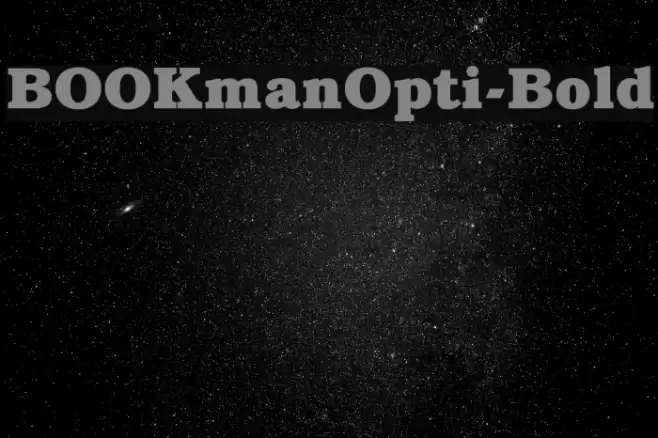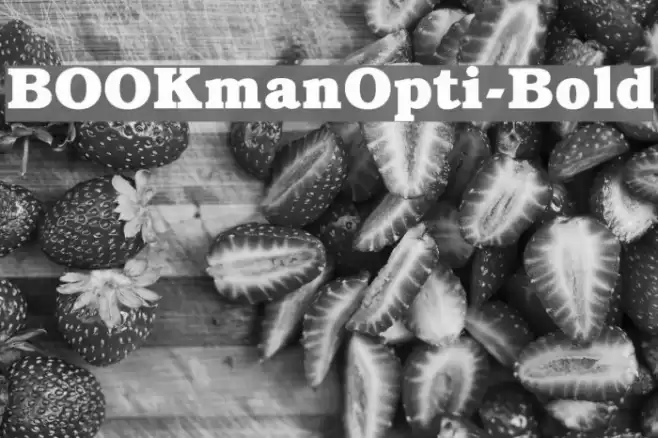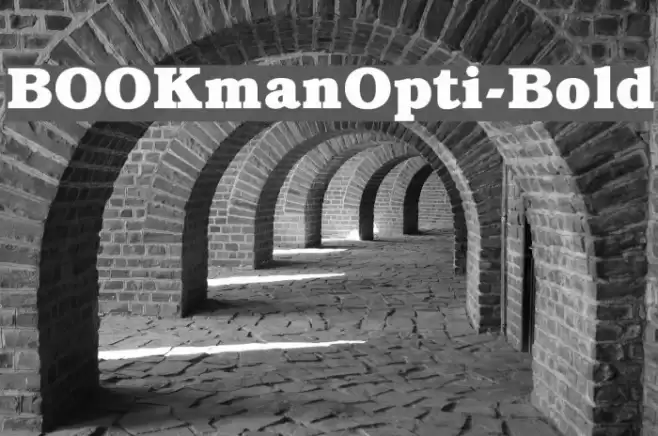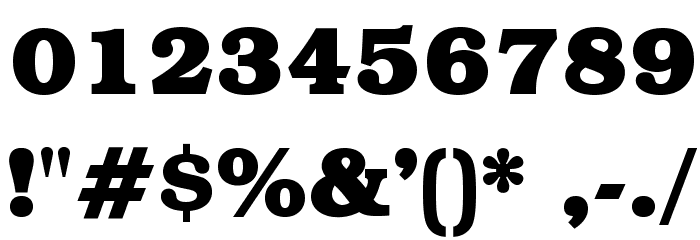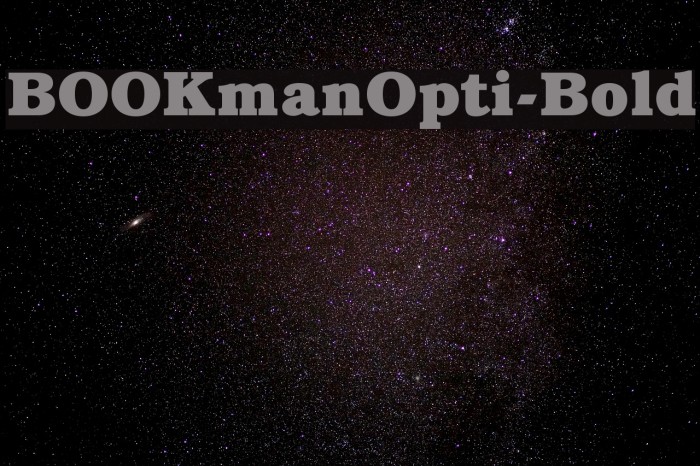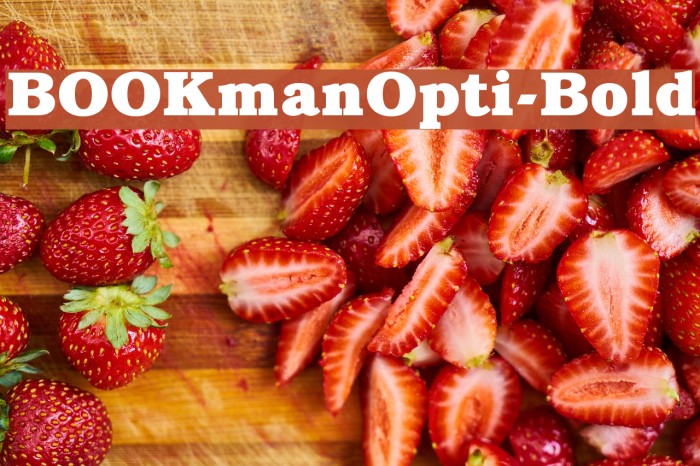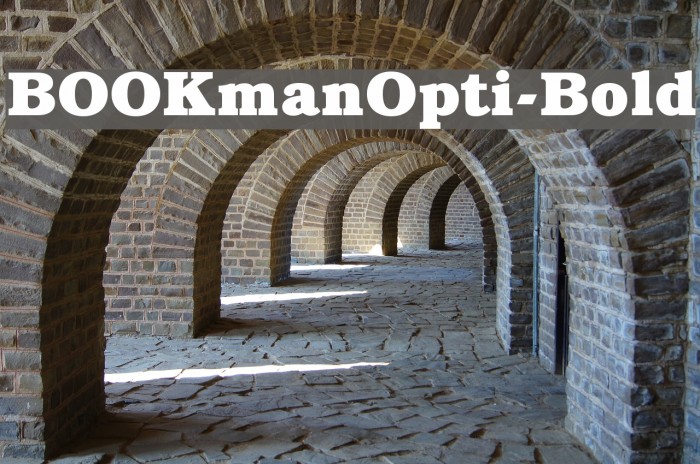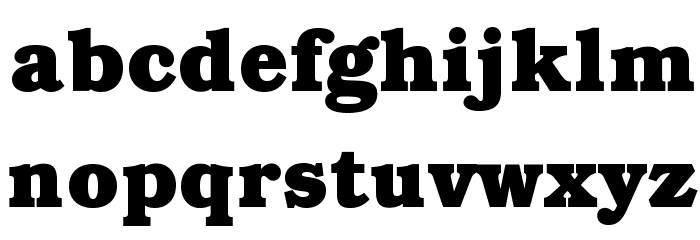
BOOKmanOpti-Bold Font
BOOKmanOpti-Bold Description
This font features bold, strong characters with a classic serif style. The uppercase letters are robust and commanding, while the lowercase letters maintain a consistent weight and presence. Numbers are equally bold, ensuring readability and impact. The serifs are pronounced, adding a traditional touch to the overall design. Special characters are designed with the same boldness, ensuring uniformity across all glyphs. This font is ideal for making a statement, with its high contrast and solid structure.
Bold serif font with strong, classic characters from Uncategorized fonts.
- Proposed Projects: Ideal for book covers, headlines, posters, and branding materials that require a strong, authoritative presence.
- Overall Style: Classic